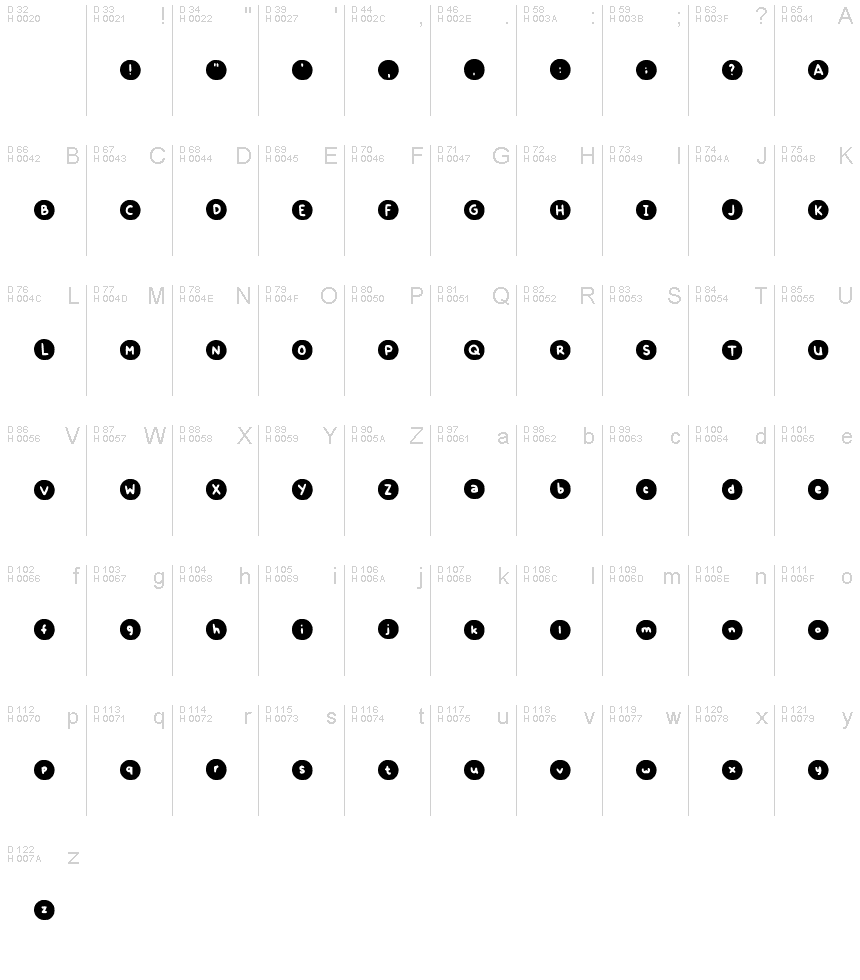
White Pearls Regular
If you're looking for a font that exudes elegance and sophistication, White Pearls is the perfect choice. Designed by glitterdazed, this display font features beautiful decorative elements that add a touch of glamour to any project. Whether you're working on wedding invitations, luxury branding, or high-end fashion marketing materials, the semi-bold font style of White Pearls is sure to make a statement. The wide width of this typeface also makes it ideal for headlines and titles that need to stand out. With its unique and memorable design, White Pearls is sure to leave a lasting impression on your audience.